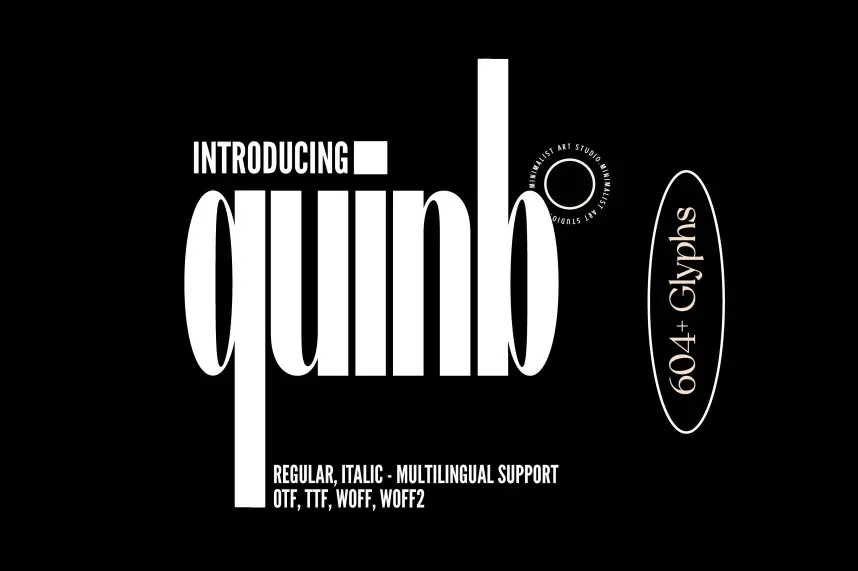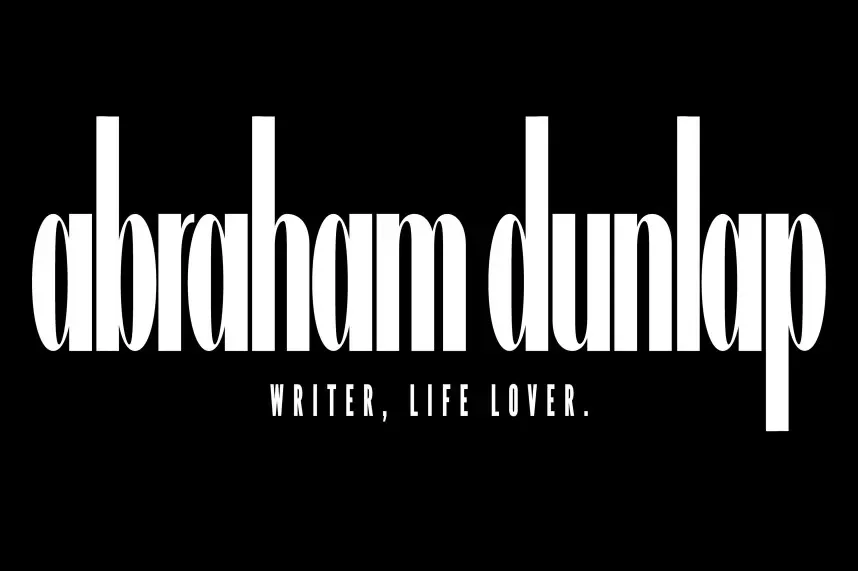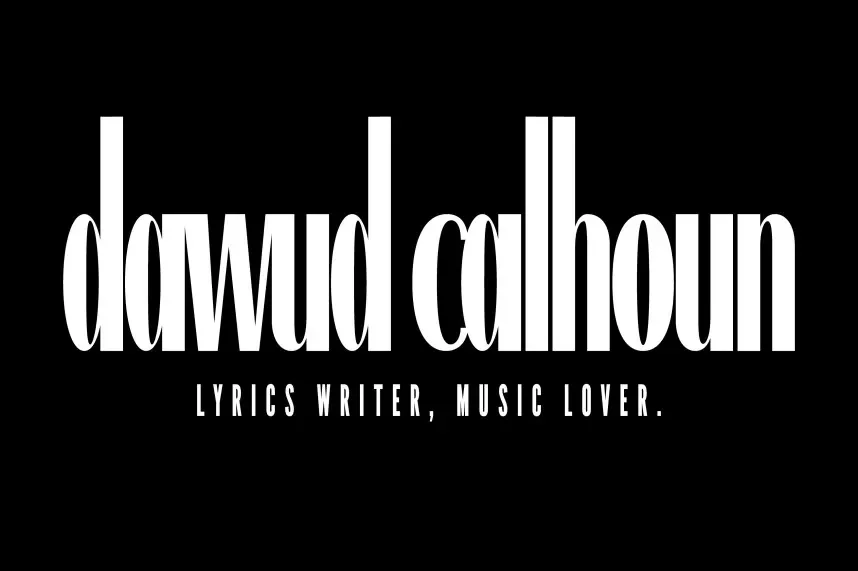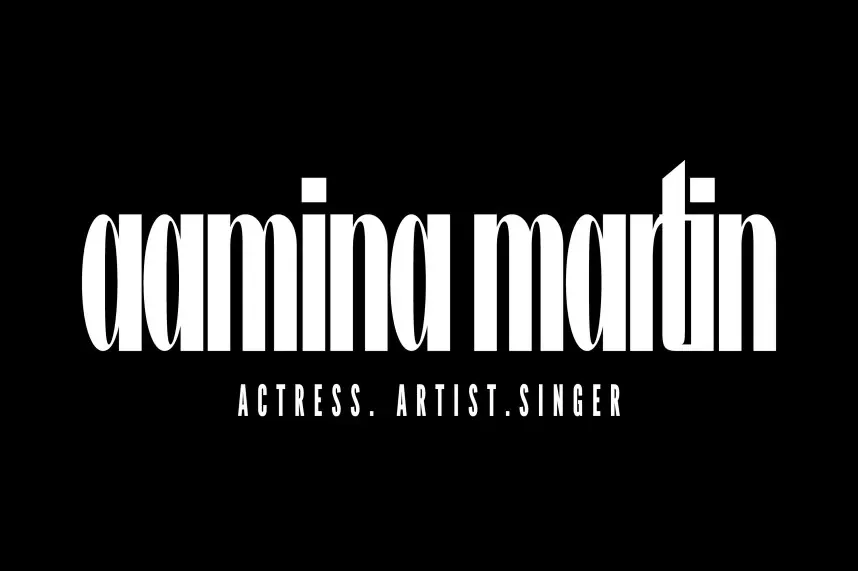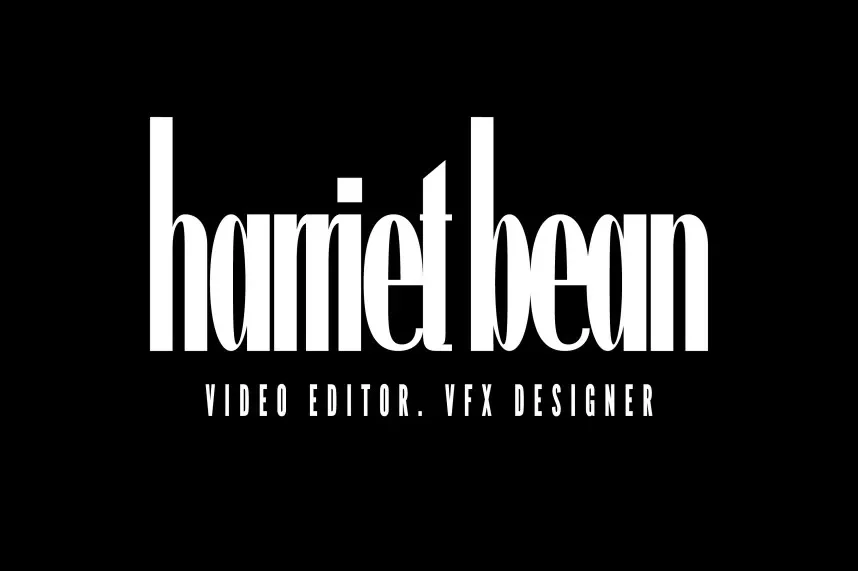
Quinb Font is a modern sans-serif typeface designed for clear readability and sleek, minimalist design. Its balanced proportions and clean lines make it perfect for professional branding, digital interfaces, and editorial design where clarity and simplicity are key.